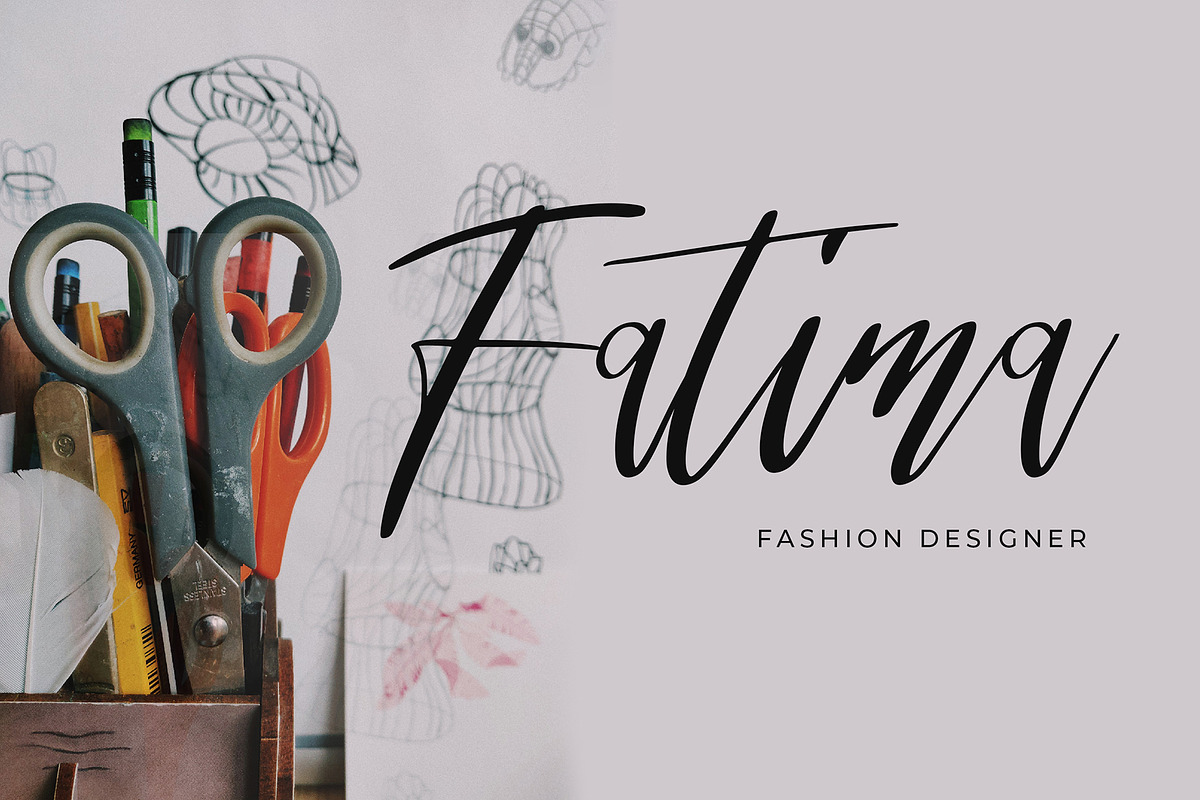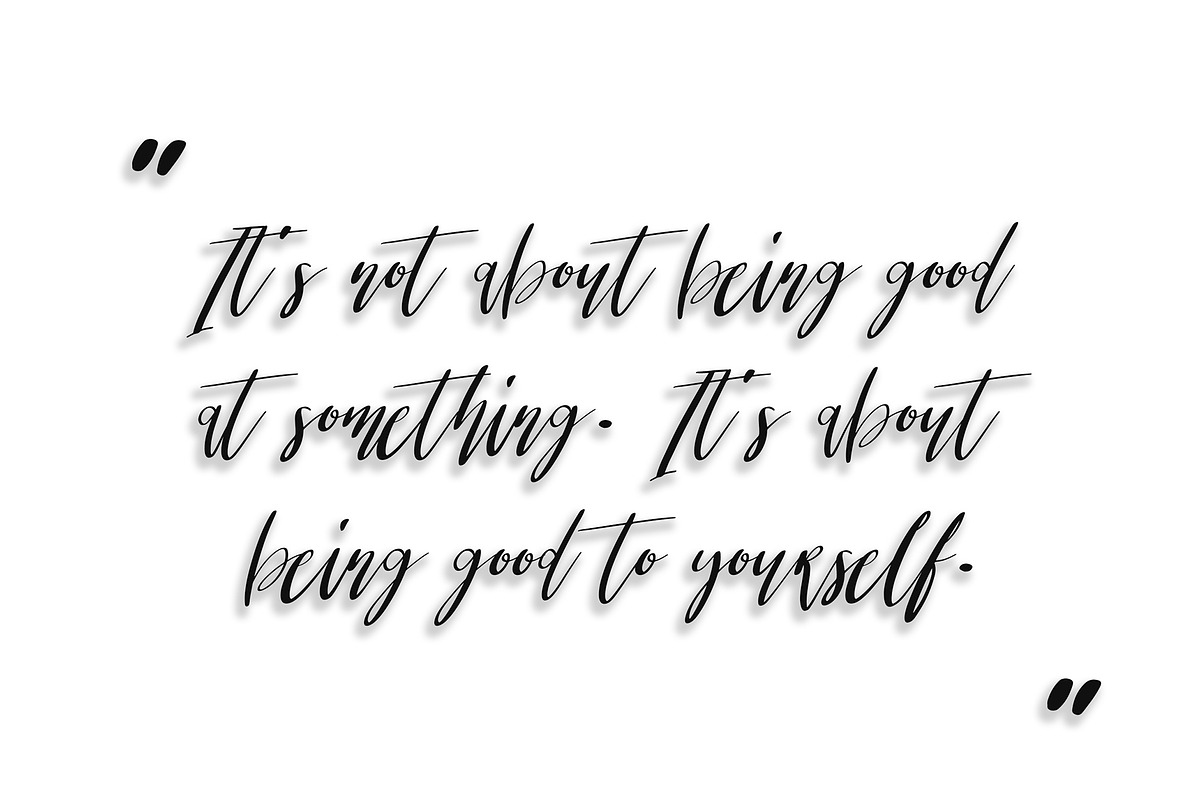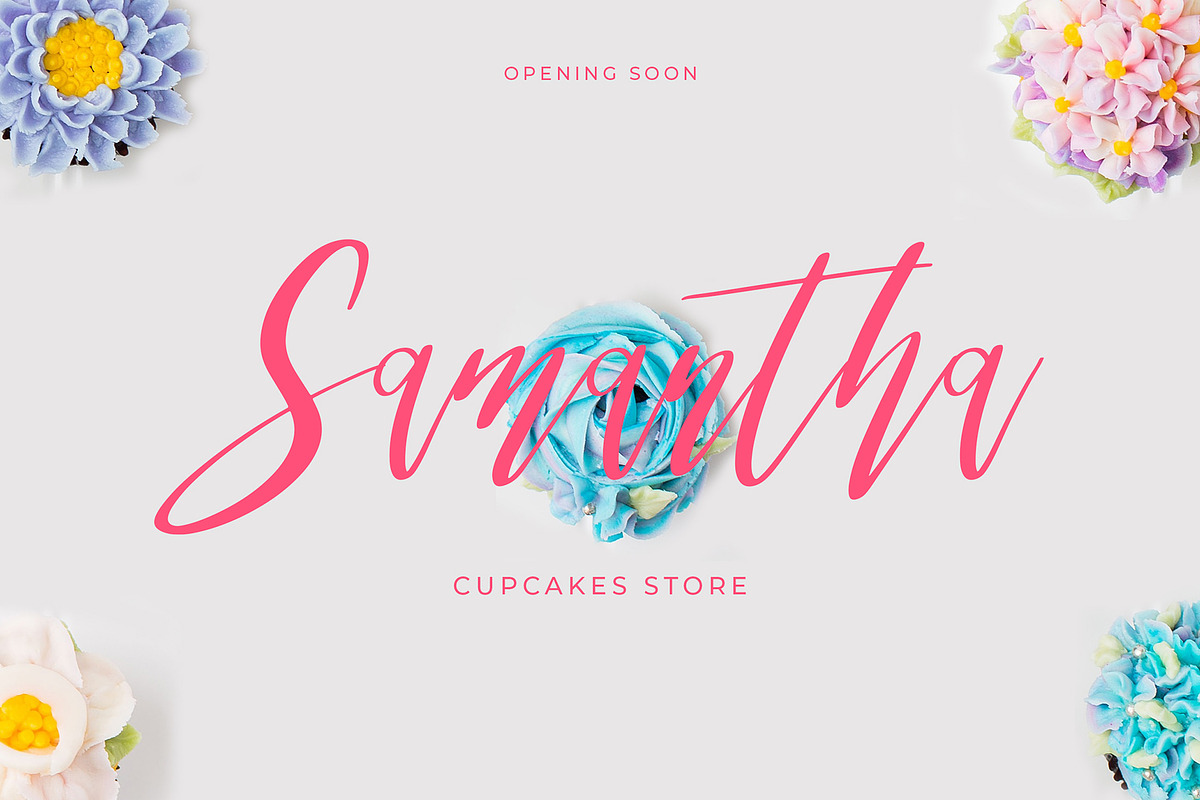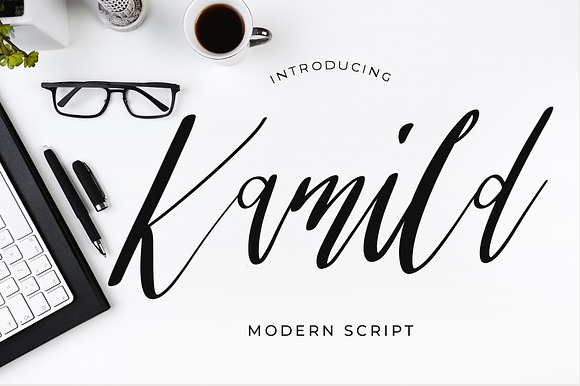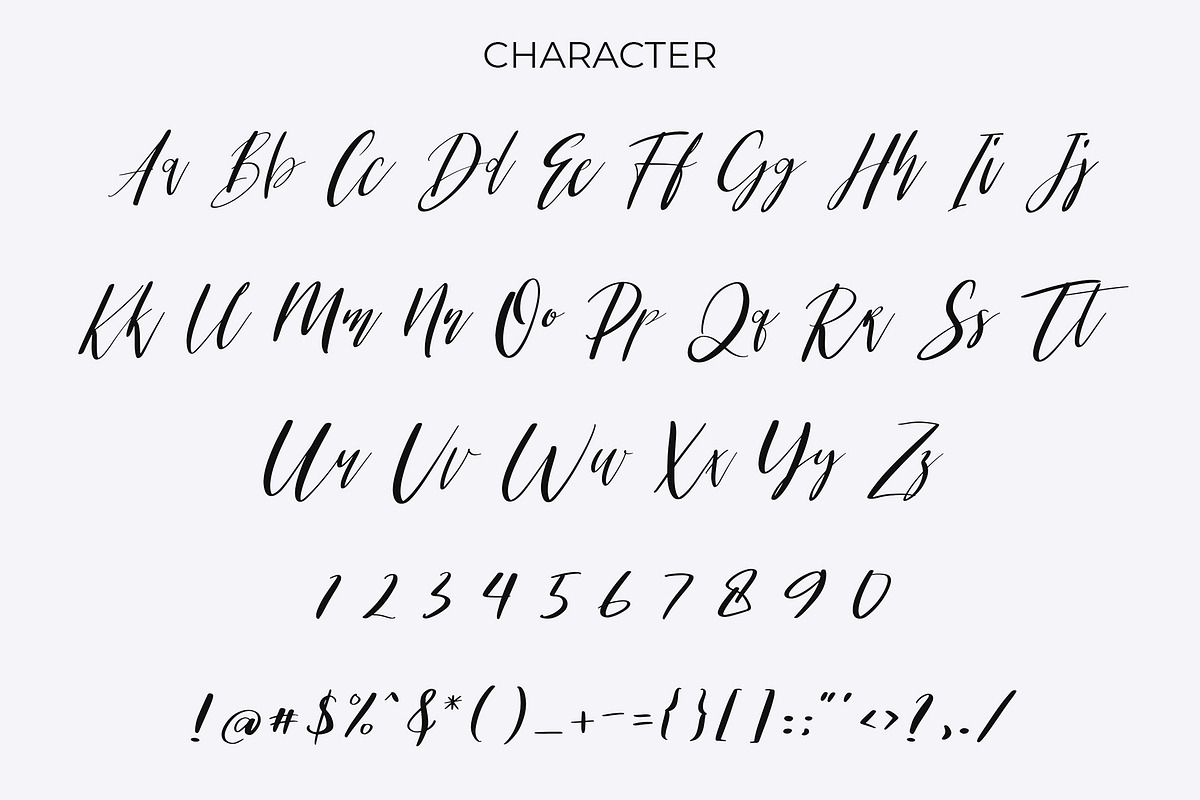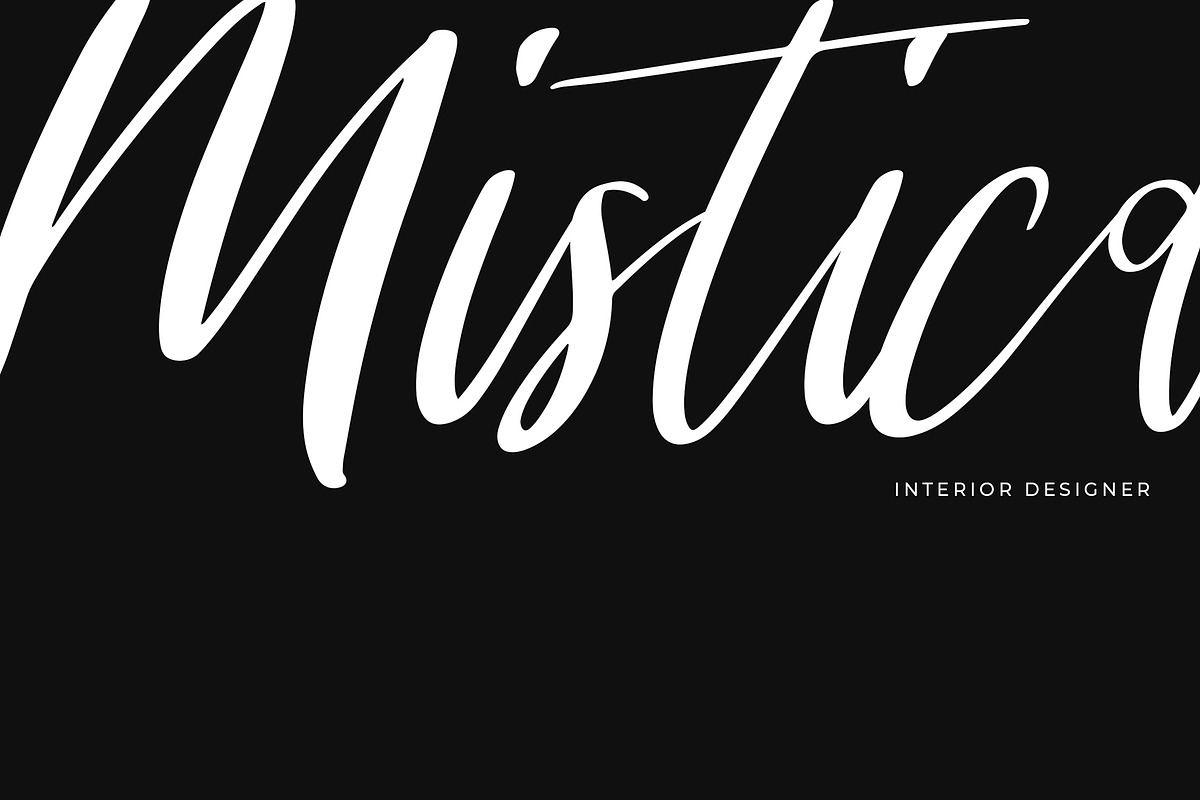
Kamild Calligraphy Font
Kamild is a beautiful calligraphy font with modern style. It’s perfect for adding a graceful feel to any design project.
Kamild is perfect for branding projects, logo, wedding designs, social media posts, advertisements, product packaging, product designs, label, photography, watermark, invitation, stationery and any projects.
Why Kamild Calligraphy Font is worth a look
Kamild Calligraphy Font by Formatika Studio fits naturally into Branding, posters, packaging, typography.